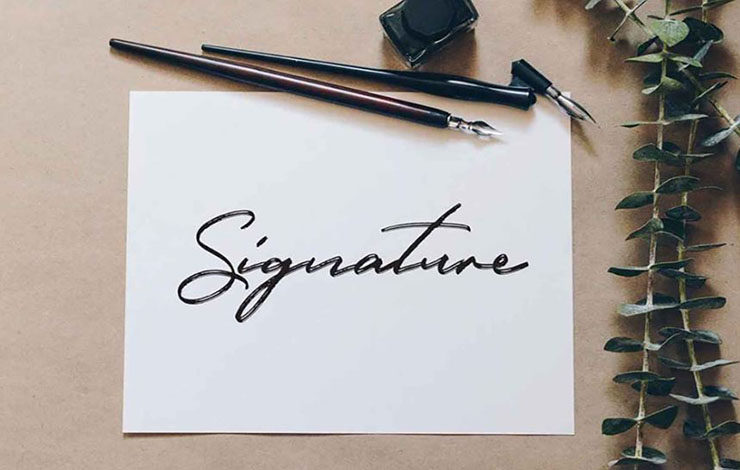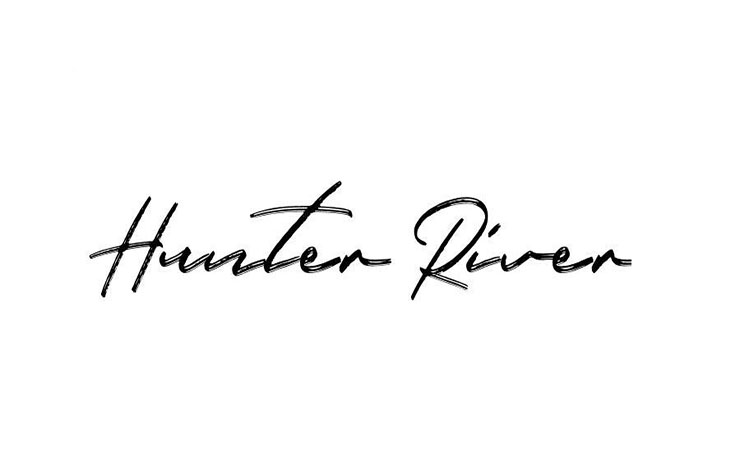
Hunter River Font is a stunning hand-drawn signature brush script typeface created and shared by Jeremy Vessey.
It features a natural and elegant calligraphic look that is perfect for creating authentic and stylish signatures, logos, and branding designs.
With its flowing and organic lines, Hunter River exudes a sense of creativity, uniqueness, and sophistication. It works great for a variety of design projects, such as titles, postcards, packaging, labels, apparel, prints, quotes, and more.
It comes with a range of alternate characters, ligatures, and swashes that allow you to create customized designs that perfectly match your branding or personal style.
Hunter River is a beautiful and versatile typeface that offers endless possibilities for designers looking to create a stunning signature and calligraphic designs.
You can use this awesome font for different purposes. For example, design logos, business cards, greetings and invitations, birthday cards, signatures, movie posters, social media posters, flyers, signatures, birthday cards, printing on t-shirts, fashion magazines, and more.
Whether you want a bold and dramatic look or a subtle and refined touch, Hunter River has you covered. Plus, the typeface is easy to use and comes with multilingual support, making it accessible to designers around the world.